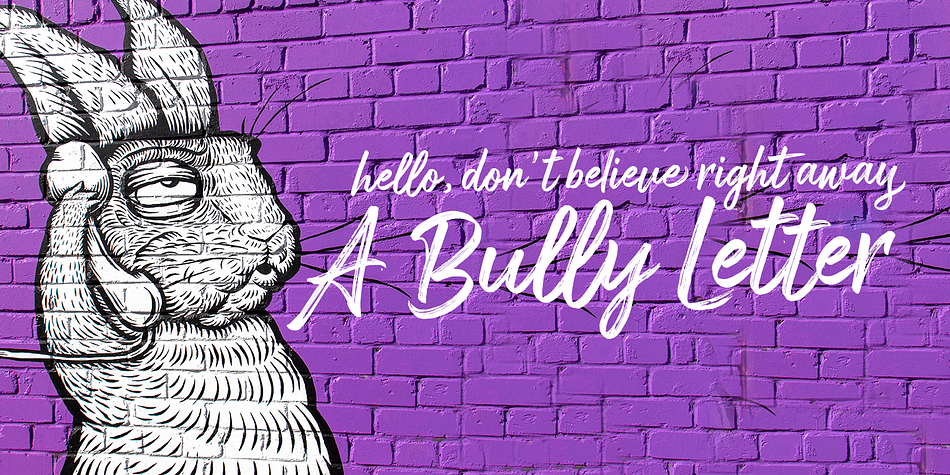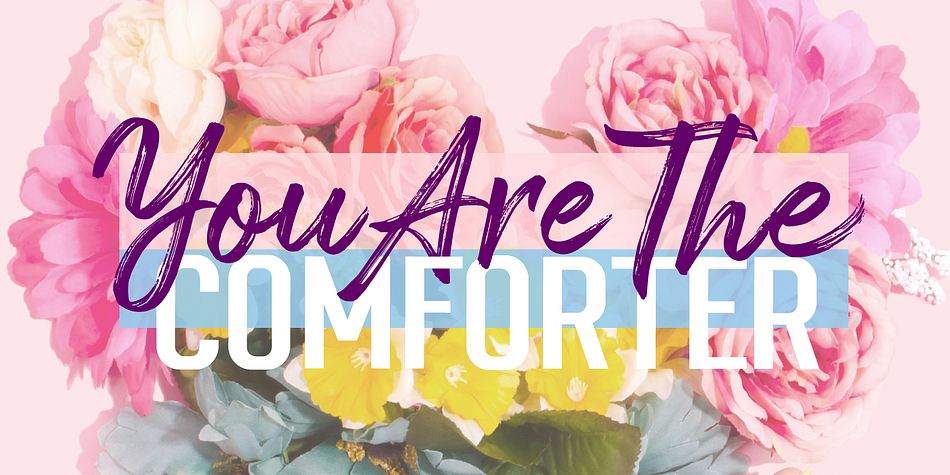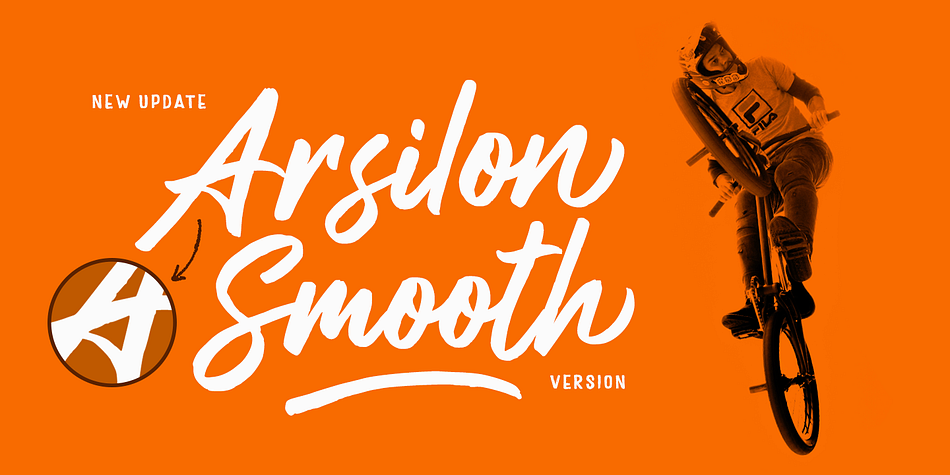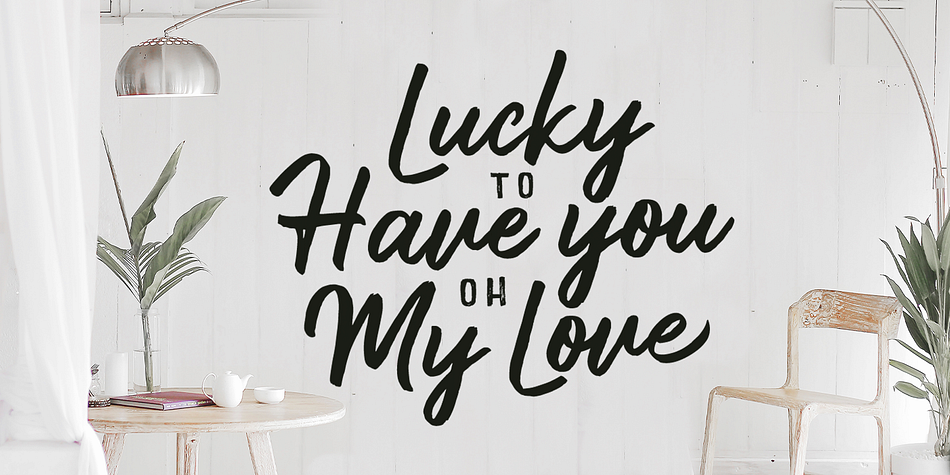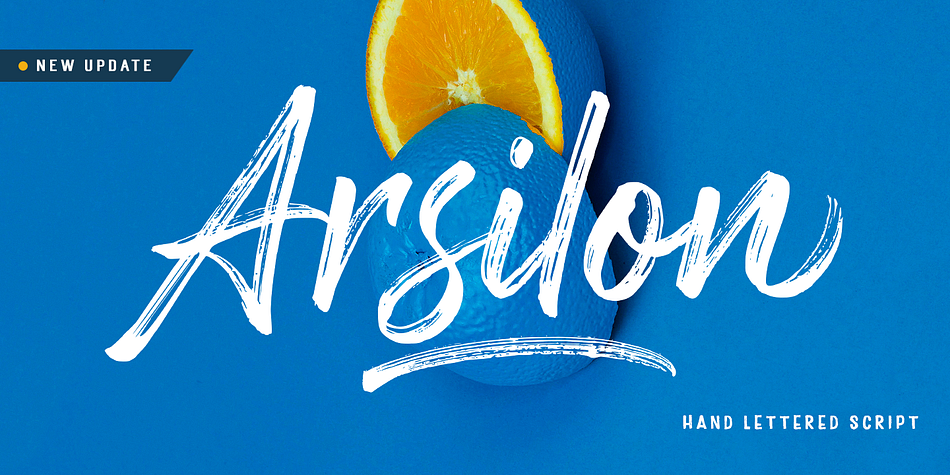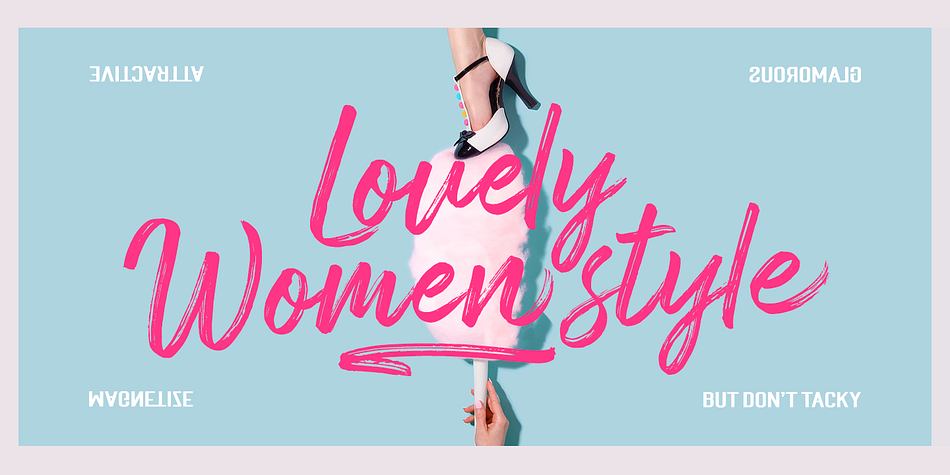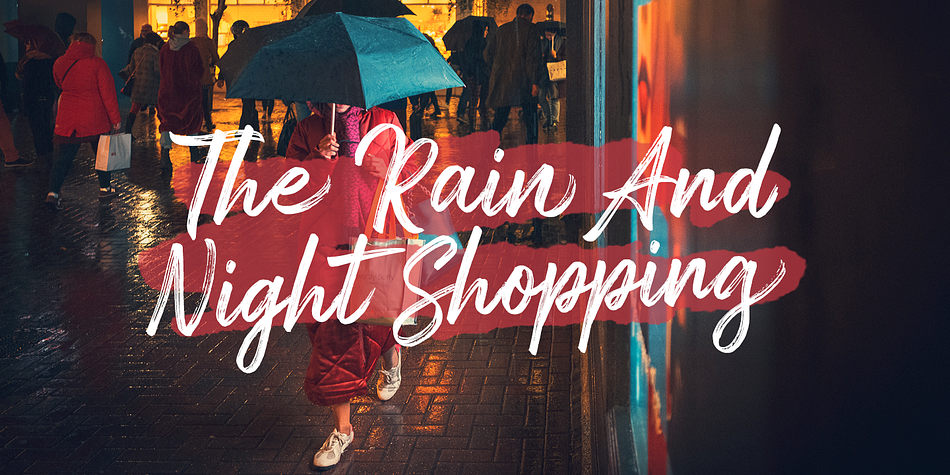
Arsilon is a modern calligraphy, script and dingbat font family. This typeface has two styles and was published by Dhan Studio.
Arsilon is a textured brush font, a contemporary approach to design, naturally handmade and with underscores.
It also has alternatives and ligatures that make your design more attractive.
Suitable for use in title design such as clothing, invitations, tittle books, stationery designs,
quotes, branding, logos, greeting cards, t-shirts, packaging designs, posters and more.